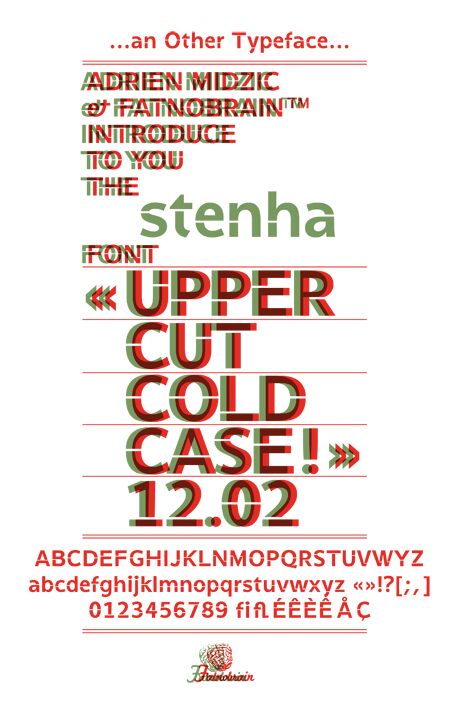
Stenha Bold is a free heavy sans serif display font with an assertive, tightly built silhouette. Broad strokes shift subtly in width, and rounded forms meet sharp, flat cuts that give the letters an industrial edge. The lettering feels oversized and blunt.
Streetwear and contemporary music audiences are a natural match for merchandise and event posters, where the dense shapes can become part of the graphic image. Its crisp geometry also suits sports graphics and editorial covers with a forceful, modern direction.
This is a stencil font.